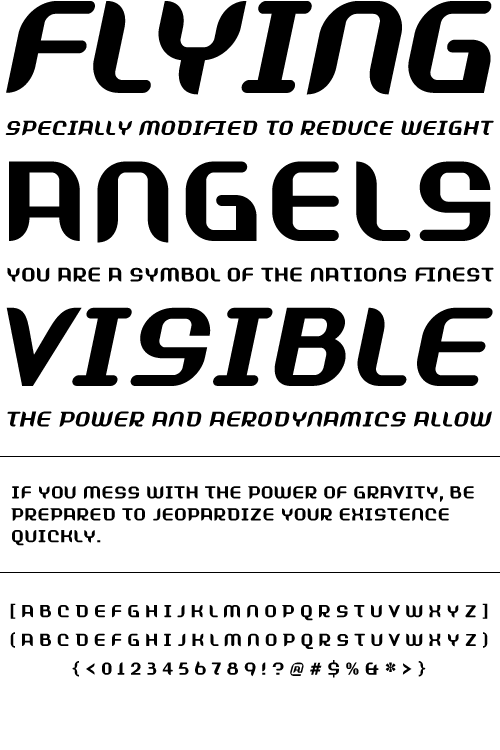
Shifty
Rational curves and spiky rhythms punctuate this all-caps sans face, for a plastic feeling, futuristic effect.
Year Designed:
1998
Weights:
Regular, Italic